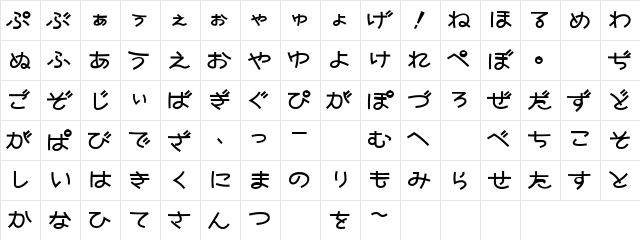
Nekoyanagi Regular
Design Context for Nekoyanagi Typeface
Nekoyanagi takes a measured approach to typography — its balanced proportions and neutral character make it a reliable workhorse for both digital and print work.
Pro Tip: Use Nekoyanagi in both headline and body roles to test its range before committing to a single application.